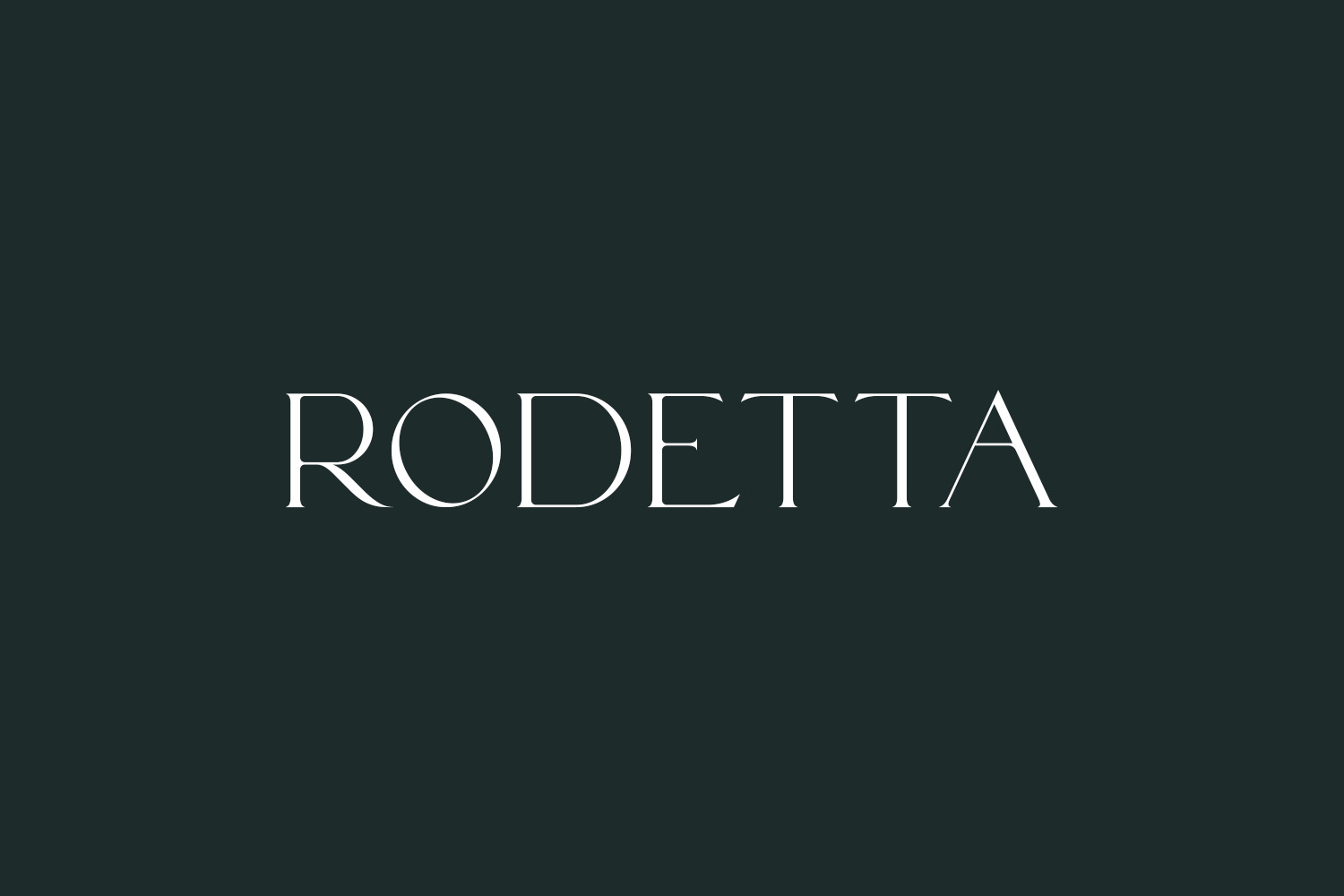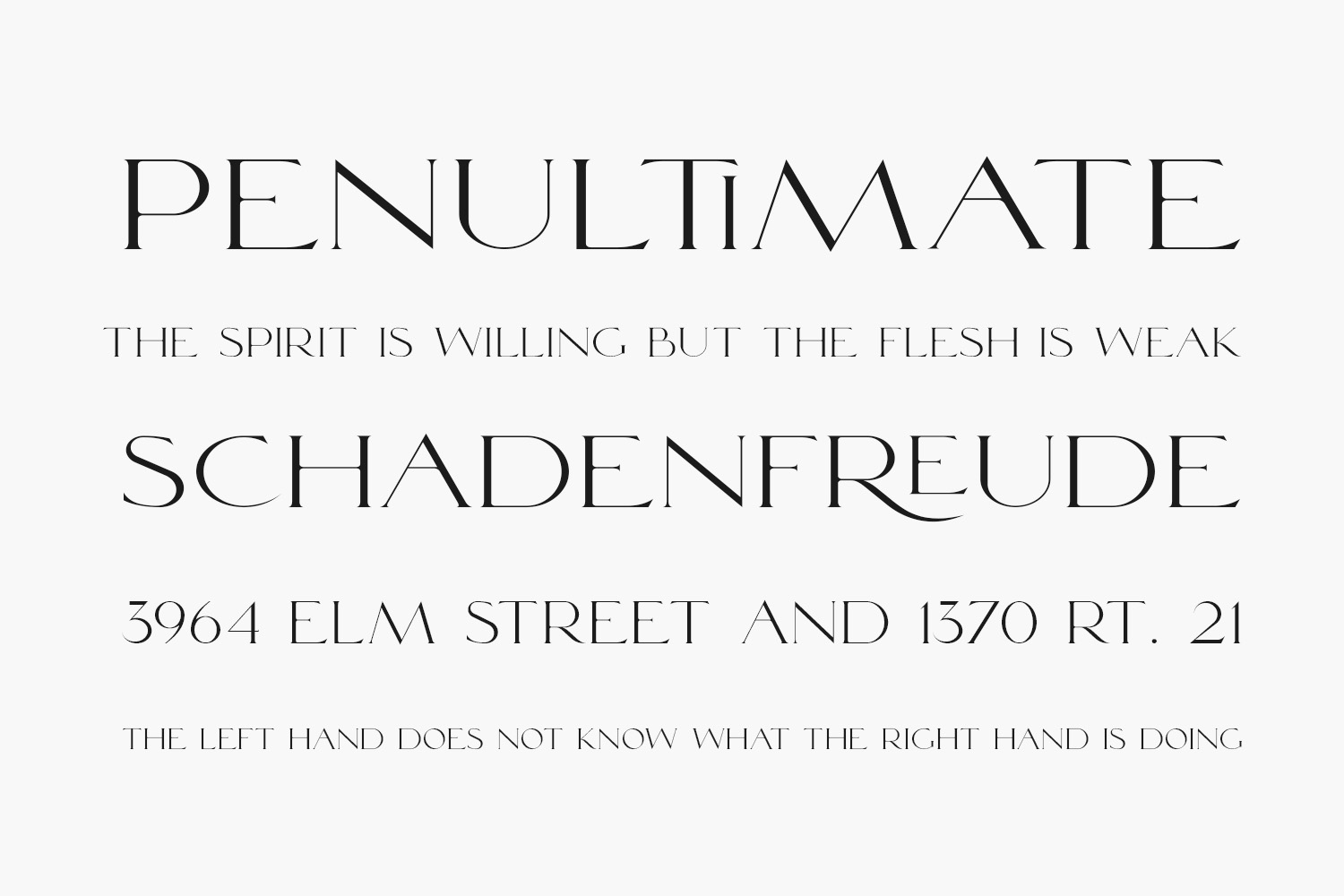
Rodetta Free Font duo is a match made in heaven, consisting of script fonts and sans serif fonts which can be paired perfectly. Combining these two fonts in your next design will give an elegant and unique feel. Rodetta Free Font was designed by BrandSemut and is free for personal use only. Please purchase the full version for commercial use.